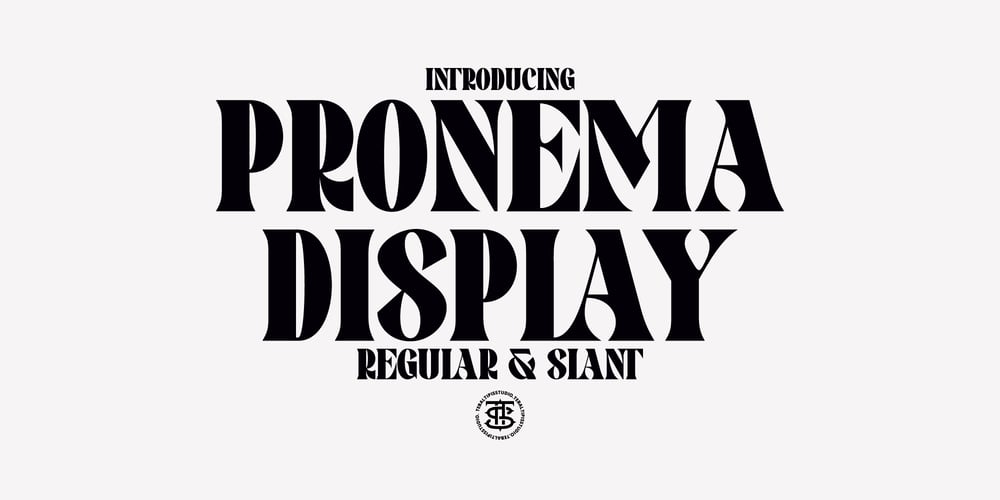
Pronema
Pronema font
Pronema Font Family was designed by Dzulka Elfira and published by Tebaltipis Studio. Pronema contains 2 styles and family package options. Pronema a new fresh & modern serif with a strong style, a dancing baseline! So beautiful on invitation like greeting cards, branding materials, business cards, quotes, posters, and more!Pronema Display Typeface is the part of a strong and modern Bold display. This typeface both impressive at display sizes and easily readable in text size, while the sharp shapes of the triangular serif and the distinctive letter shapes show their strength in logo design and impressive editorial use.WHAT’S YOU GET ? Unique Letterforms Works on PC & Mac Simple Installations Accessible in the Adobe Illustrator, Adobe Photoshop, Microsoft Word Fully accessible without additional design software. I really hope you’ll get pleasure using Pagers font and it will be perfect addition to your font collection! Contact me with an inbox message If you have any question. Thank you! Happy Creating.